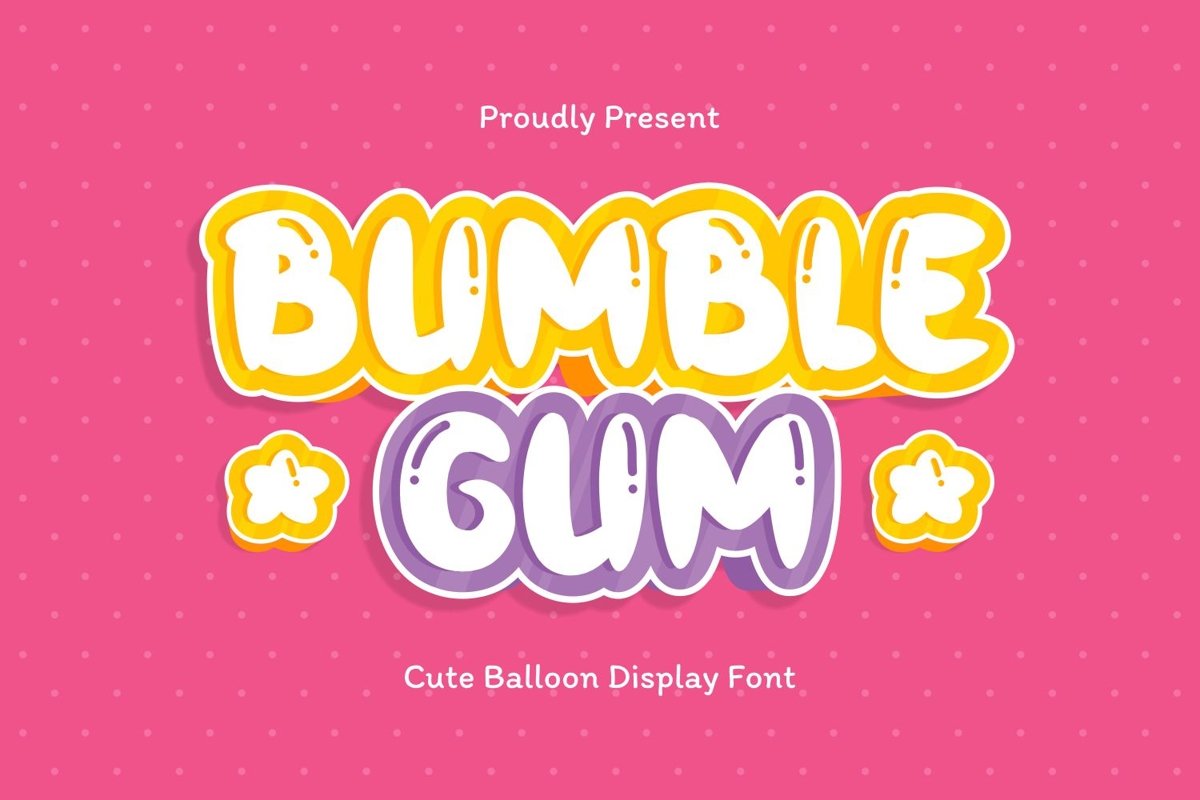
Bumblegum is a sans display font come with cute themes. We creates character like a balloon. It matches applies in some designs such as the logotype, brand, packaging, quotes, kids poster, shirt, children’s book and more custom design. The features uppercase, lowercase, numeral, punctuation & symbol, multilingual support, PUA encoded (fully accessible without additional design software).